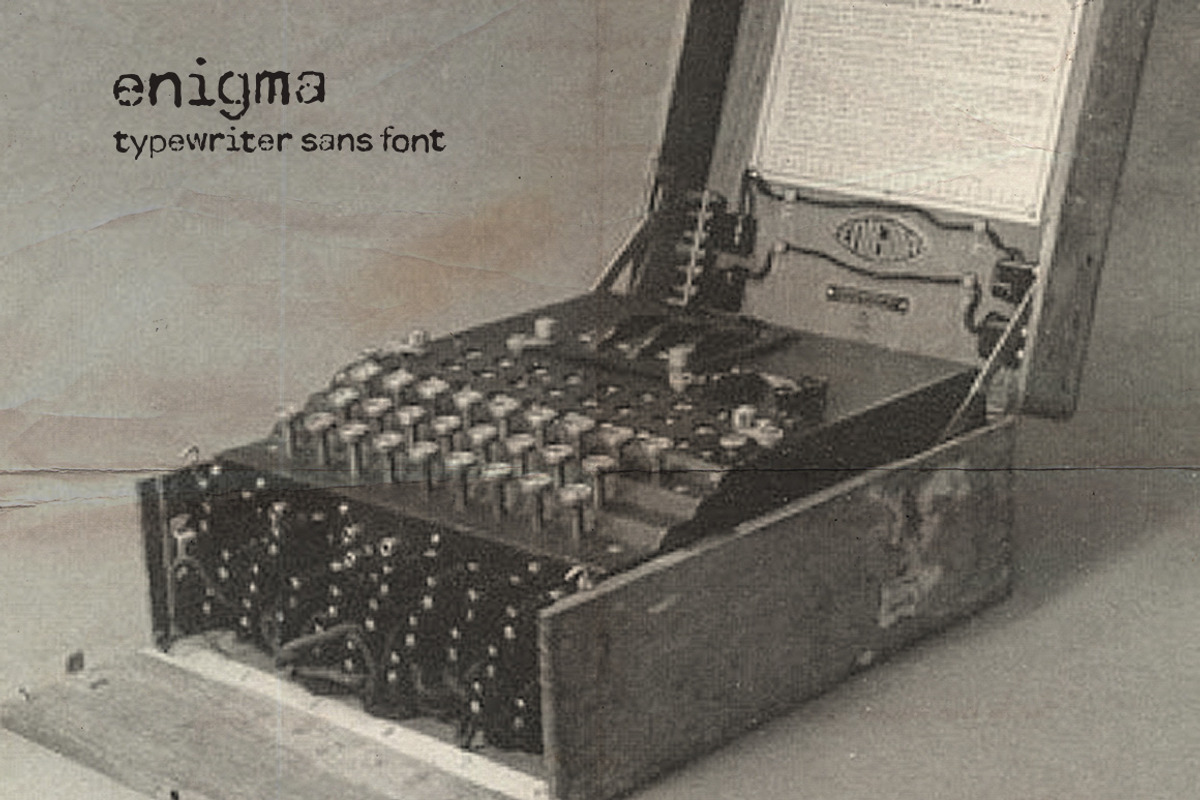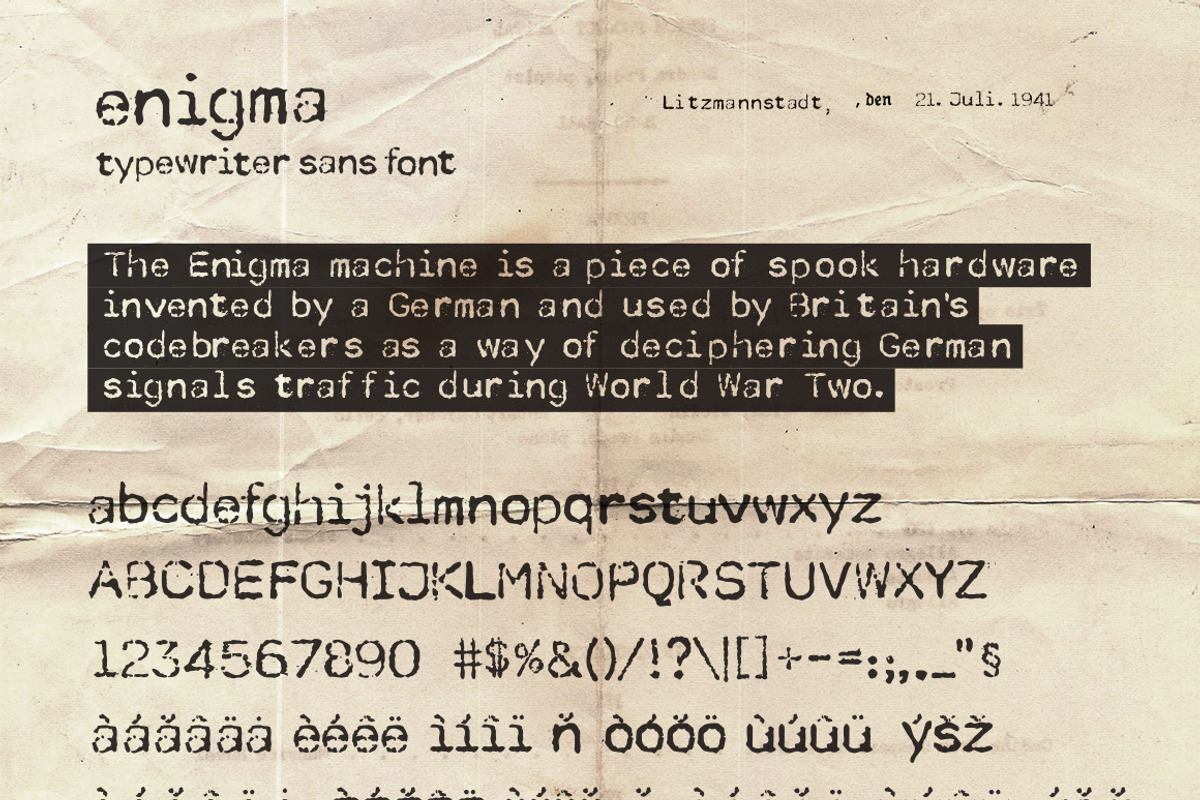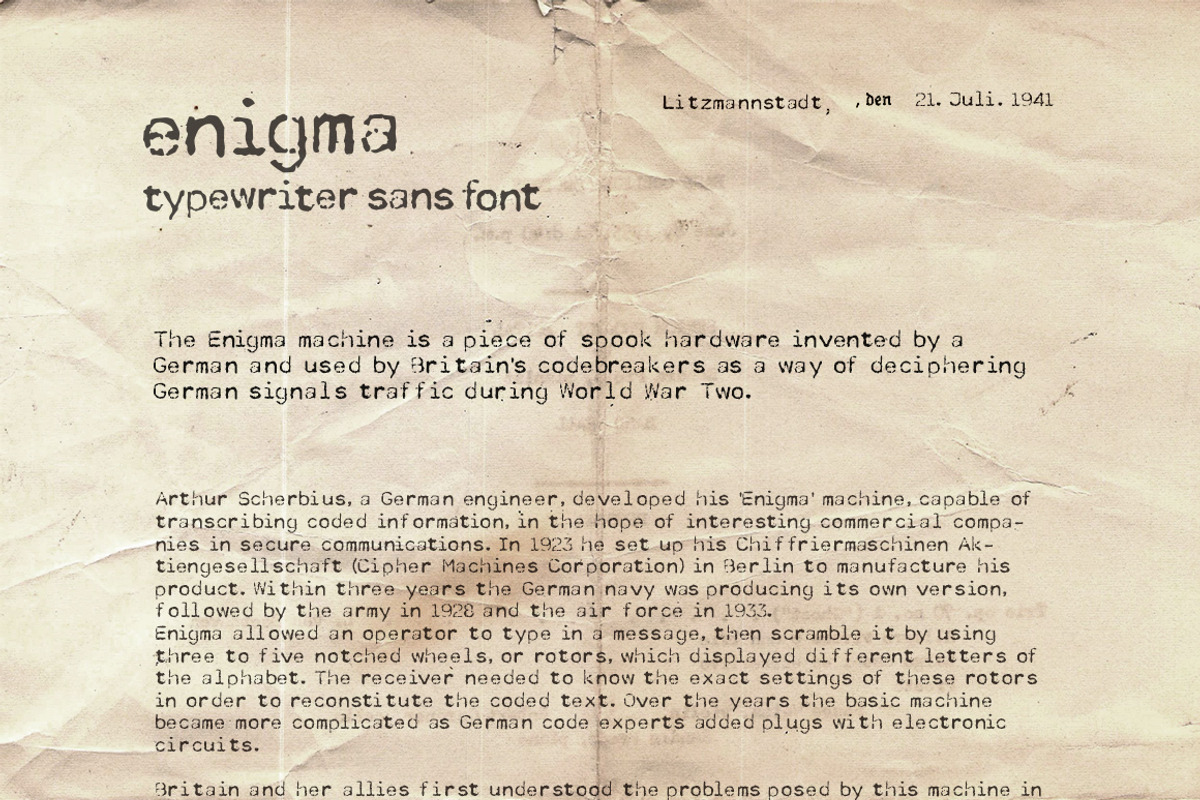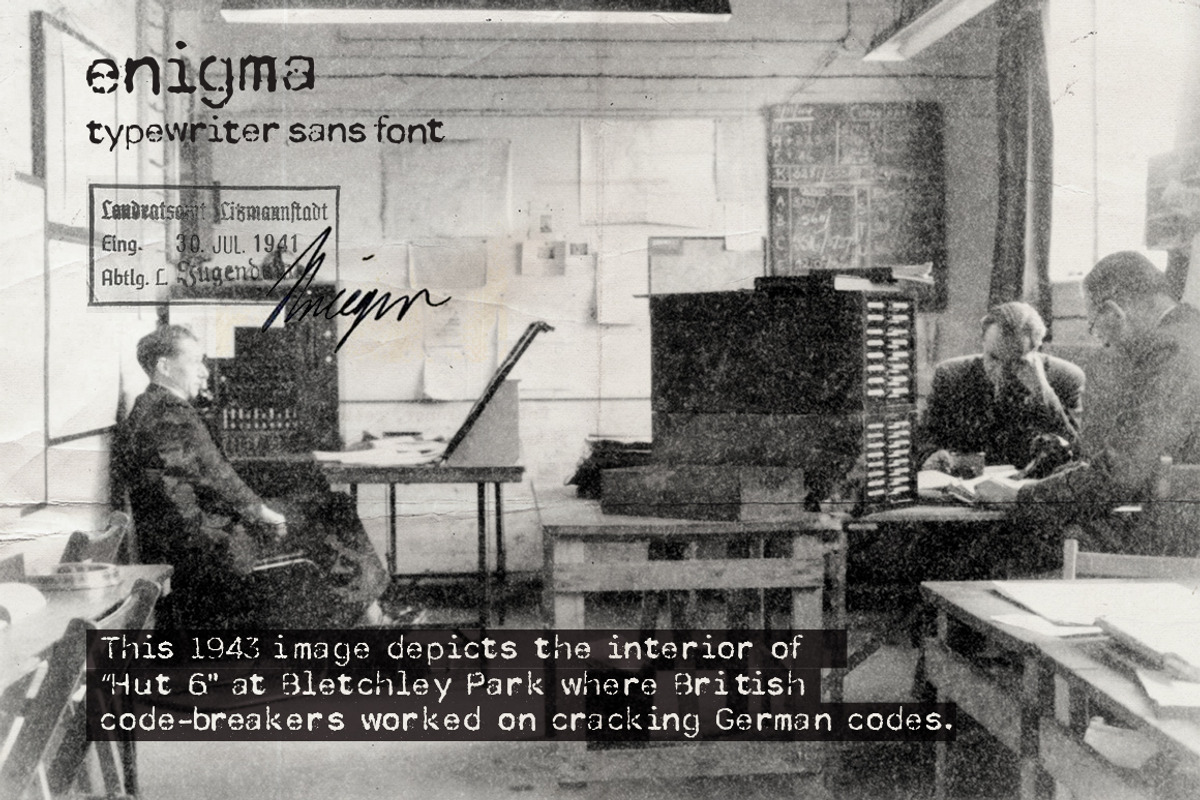
Enigma Typewriter Sans Font
Enigma Typewriter Sans Font by DesignSomething is a font selected for branding, posters, packaging, typography.
Why Enigma Typewriter Sans Font is worth a look
Enigma Typewriter Sans Font by DesignSomething fits naturally into Branding, posters, packaging, typography.